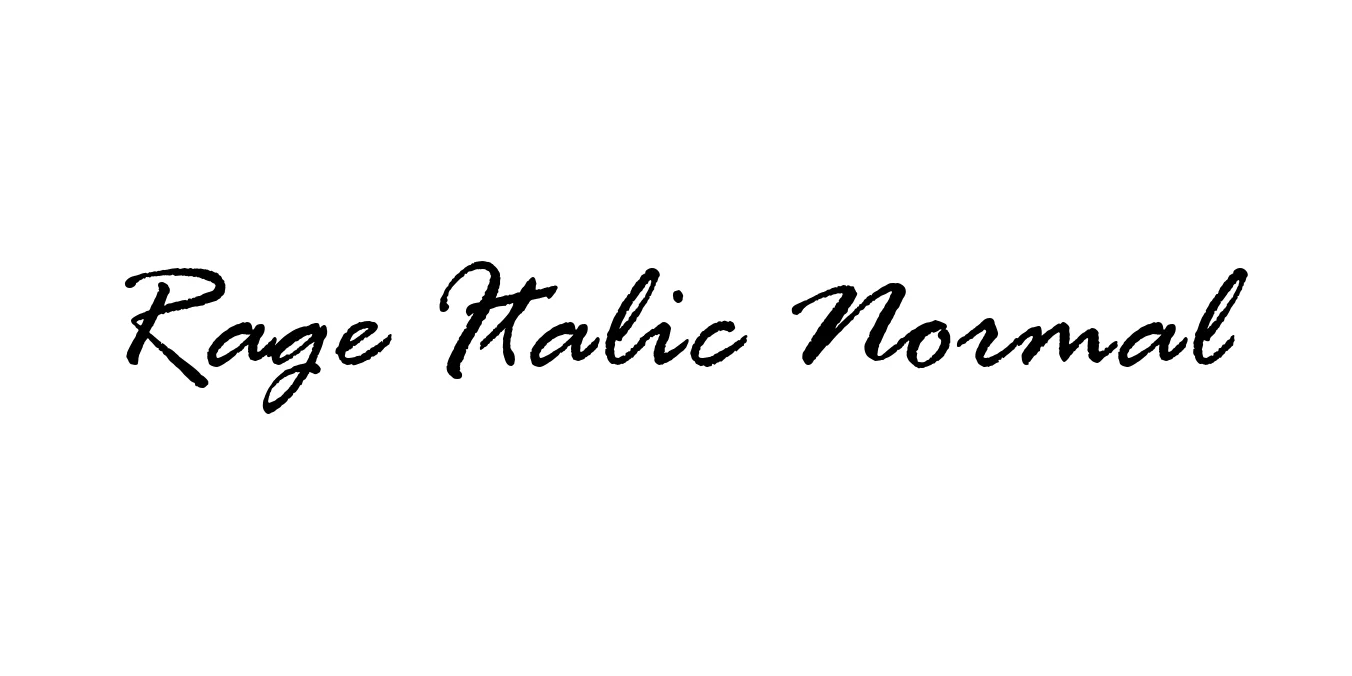
Rage Italic Normal
Designed by Ron Zwingelberg
| Font Name | Rage Italic |
| Category | Script / Brush Script |
| Designer | Ron Zwingelberg |
| Similar Fonts | Mistral, Brush Script MT, Sign Painter, Freestyle Script |
Rage Italic was designed by Ron Zwingelberg and released by International Typeface Corporation (ITC) in 1984. It is a distinctive brush-style script font that captures the look of textured handwriting or professional sign painting. The characters are characterized by their casual, energetic flow and rough, feathered edges, which give the typeface a unique, handmade feel that stands out prominently in various display settings.
The font is particularly popular for its rugged aesthetic and informal elegance, making it a staple for designers looking to convey motion or a personalized touch. Unlike many smooth-line script fonts, Rage Italic maintains a gritty texture that works exceptionally well in print media, advertising, and branding projects where a bold, expressive statement is required to capture the viewer's attention.
Rage Italic Normal Best Uses
Ideal for logos that need a personal, hand-drawn look.
Perfect for punchy headlines and high-energy promotional graphics.
Adds a touch of informal elegance to event stationary and cards.
Great for stylized quotes and expressive visual storytelling.